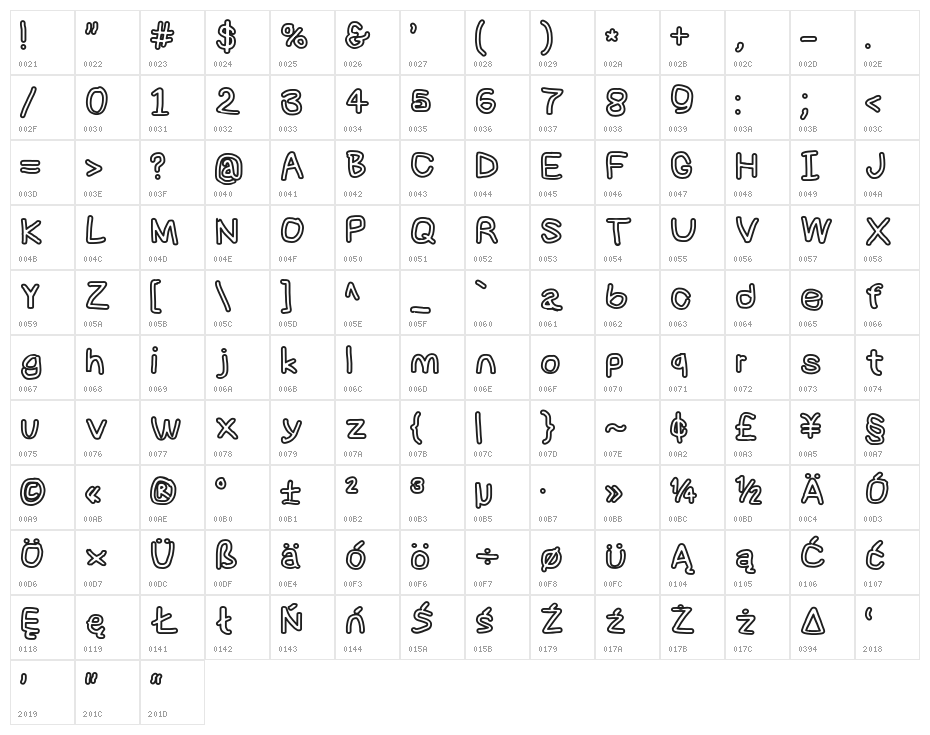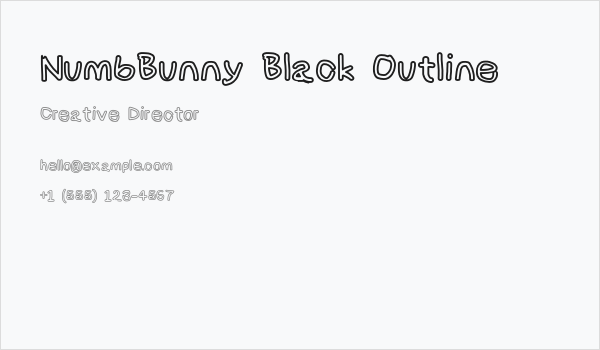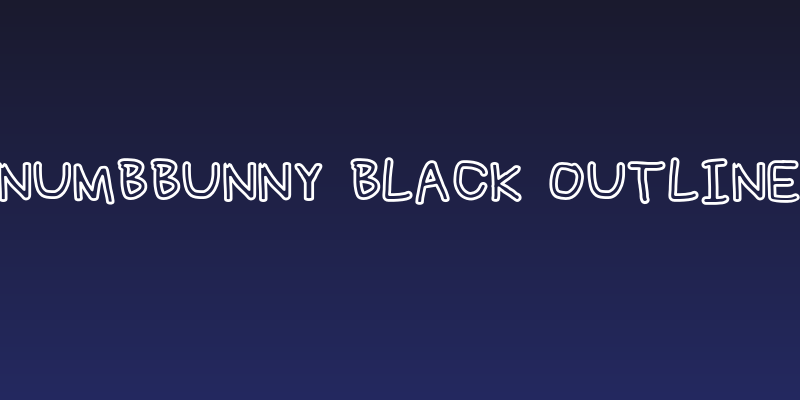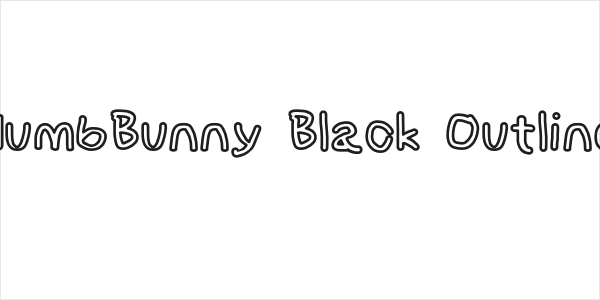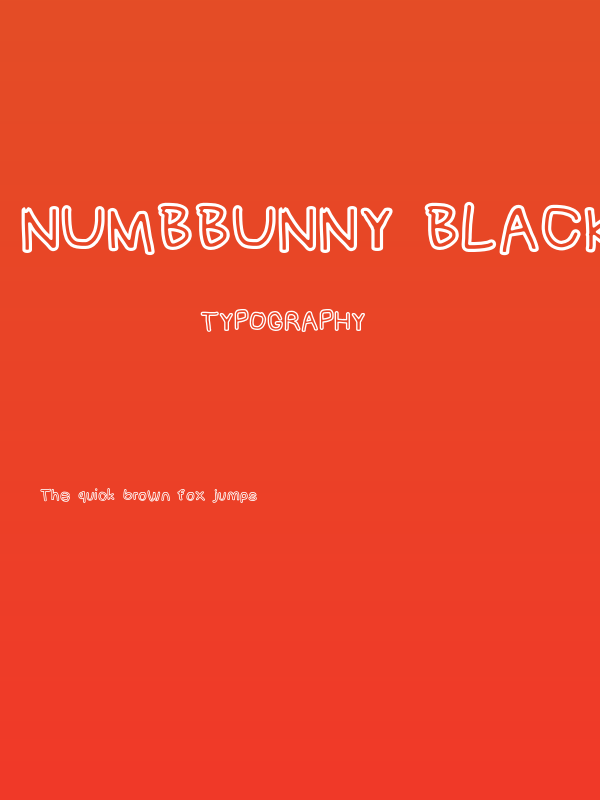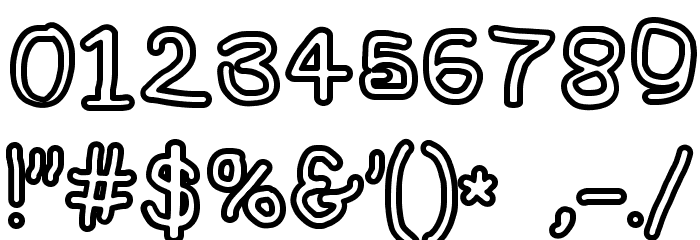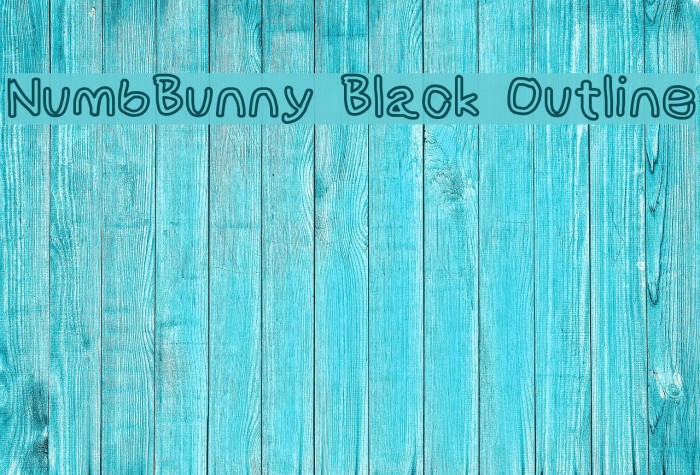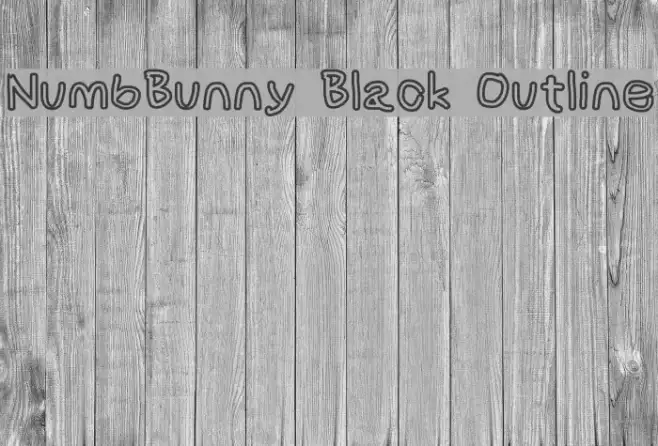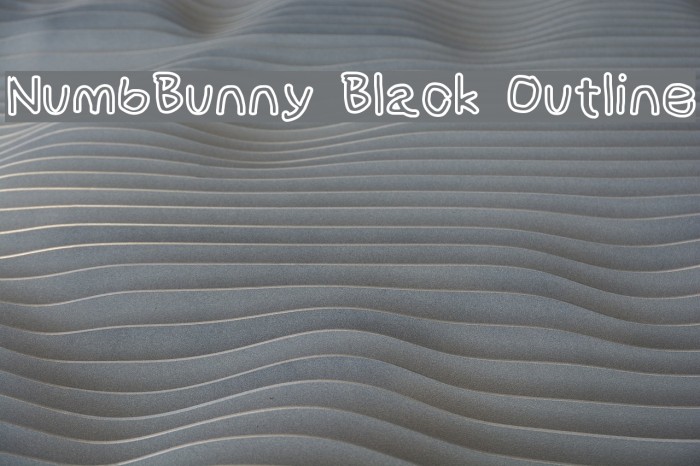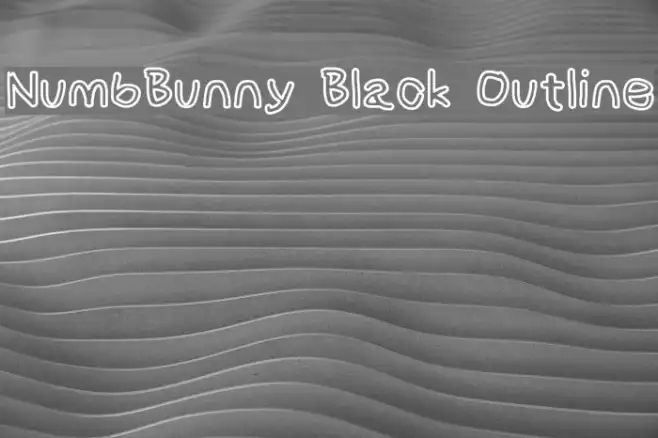
NumbBunny Black Outline Font
NumbBunny Black Outline Description
This playful and bold font features a unique outline style that gives it a cartoonish and whimsical appearance. The characters are rounded and slightly irregular, adding a hand-drawn feel that is both approachable and fun. The uppercase and lowercase letters maintain a consistent style, with a slight variation in height and width that enhances its casual aesthetic. Numbers and special characters are equally stylized, ensuring a cohesive look across all text. The font's outline design makes it stand out, perfect for projects that require a touch of creativity and lightheartedness.
| Overall Style | Playful, Whimsical |
| Proposed Projects | Ideal for children's books, comic strips, playful branding, and creative posters. |